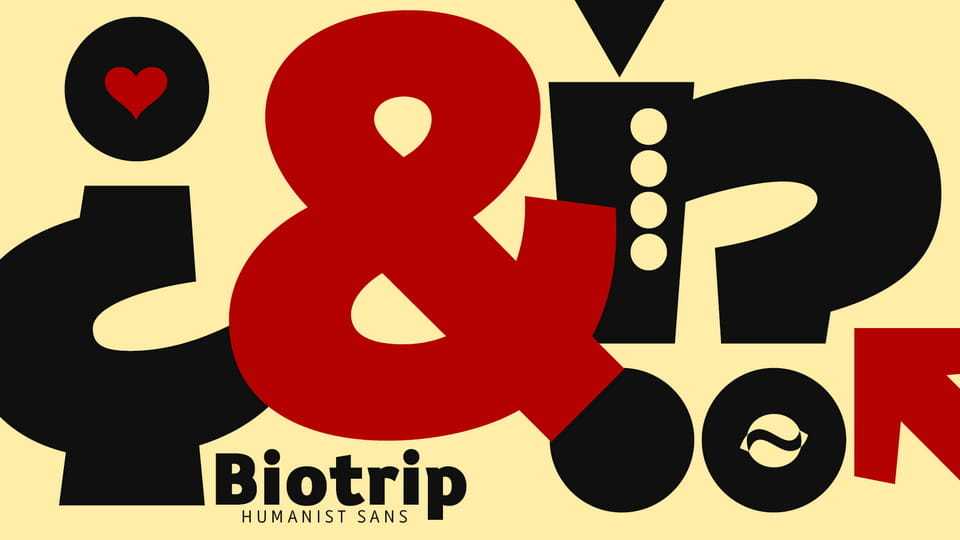
Download Biotrip Sans font, a typeface that breathes. I’ve brought to life a friendly typeface family that is, above all, a journey. A journey (Trip) from the purity of geometry to the warmth of the organic (Bio).